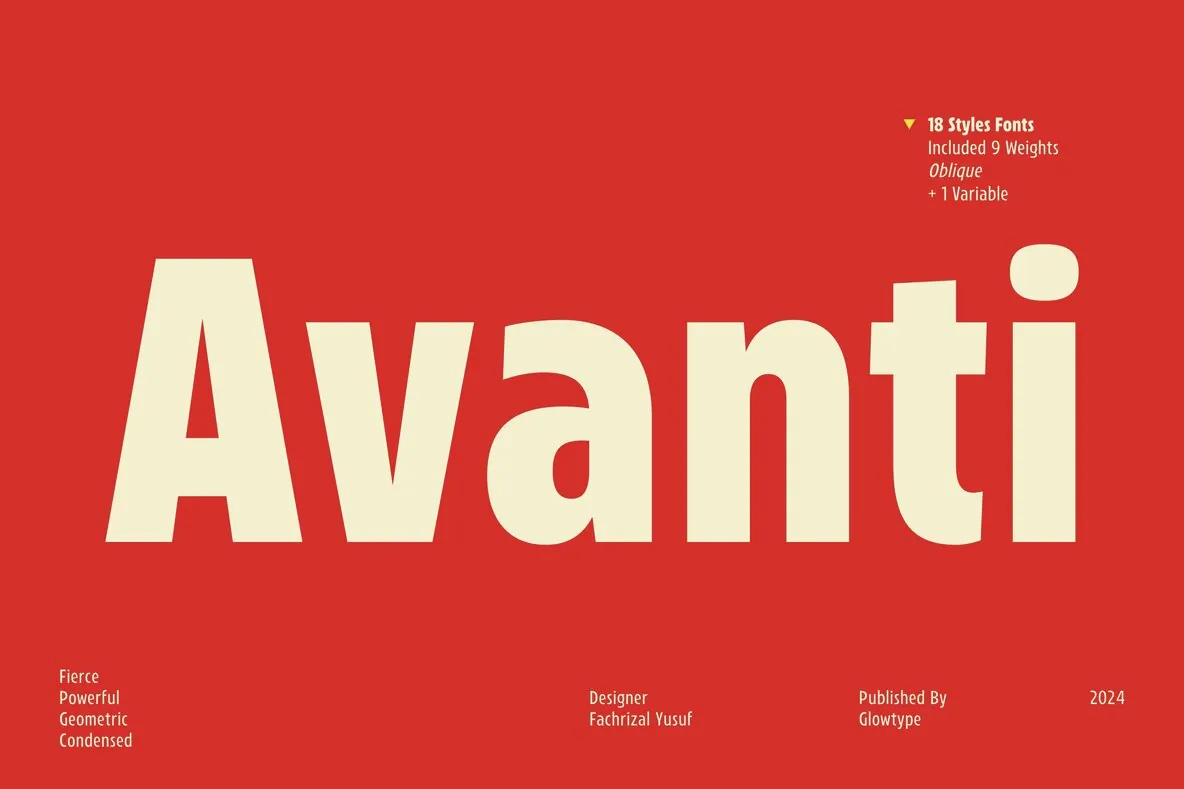
Avanti: A Bold Condensed Sans Font
Inspired by iconic subway typography from around the globe, Avanti is a modern command in condensed sans styles. Drawing on Italian aesthetics, this font is engineered to impart a bold, masculine edge that enhances the essence of your brand.
Crafted with precision, Avanti invites a seamless experience across all major design platforms. Whether you navigate marketing materials, websites, logos, or merchandise, its versatility adapts to your creative demands.
Features
Global Inspiration
– Reflects diverse subway typography.
Adaptable Design
– Suitable for branding, packaging, and more.